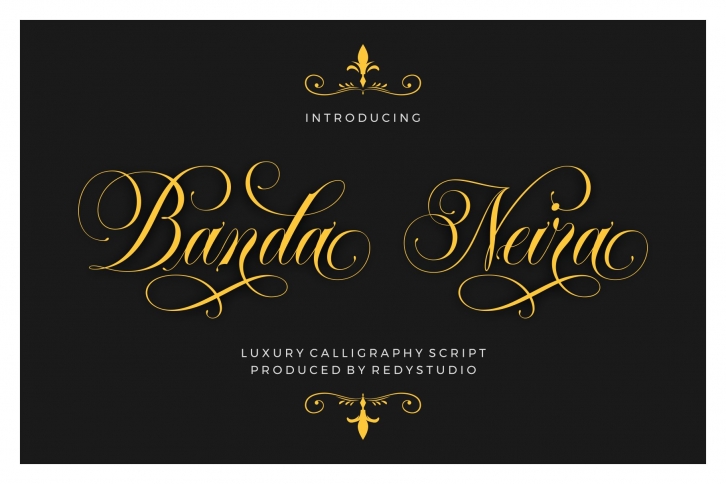
Introducing Banda Neira Script is a luxury & modern script inspired by hand lettering. Banda Neira is designed resulting in clean and wavy character, has pretty much alternatives glyphs choice in the pack. Banda Neira provides beautiful letter essence for any design project including invitations, labels, logo, card, Quote, packaging, headline, poster, magazine and more design concept :)